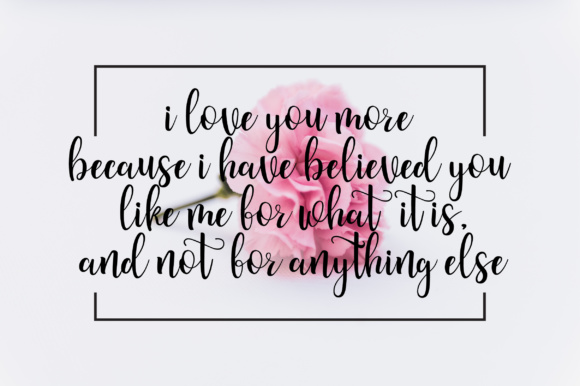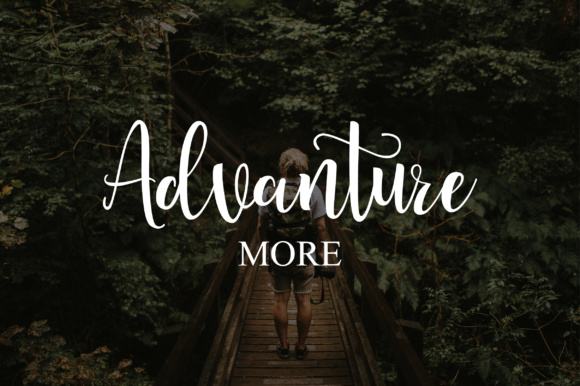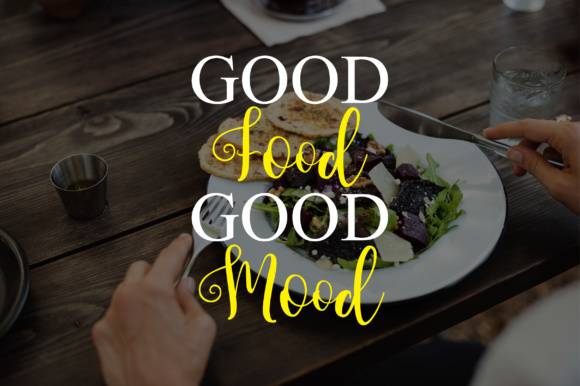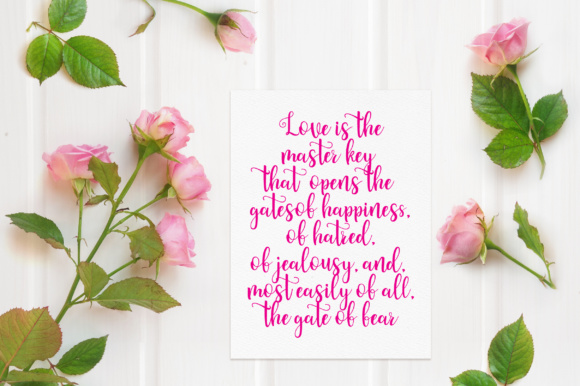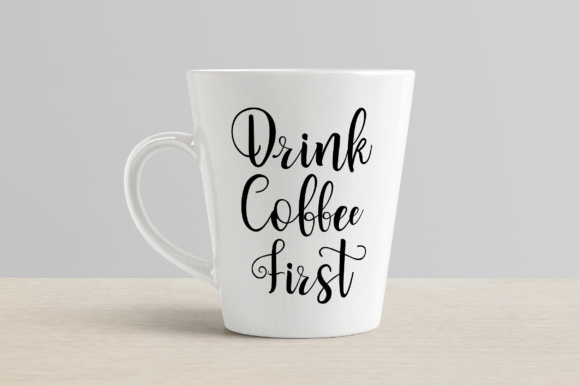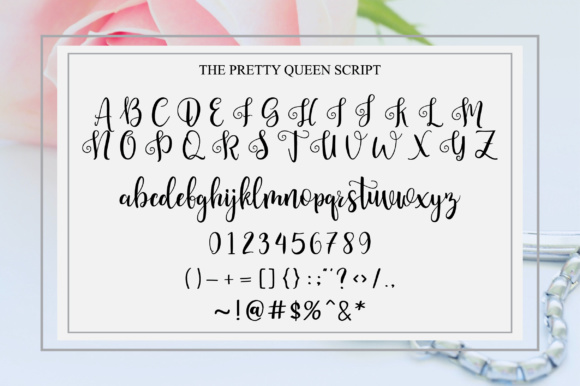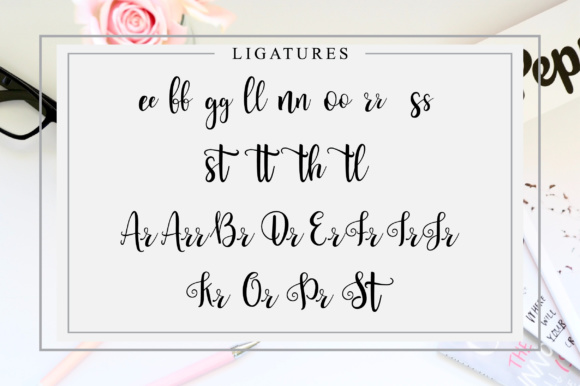
Pretty Queen Font
About Pretty Queen Font
Pretty Queen is a trendy and natural typeface. It has beautiful features and is easy to use. Pretty Queen is suitable for market designs, birthdays, graduations, invitations and much more!